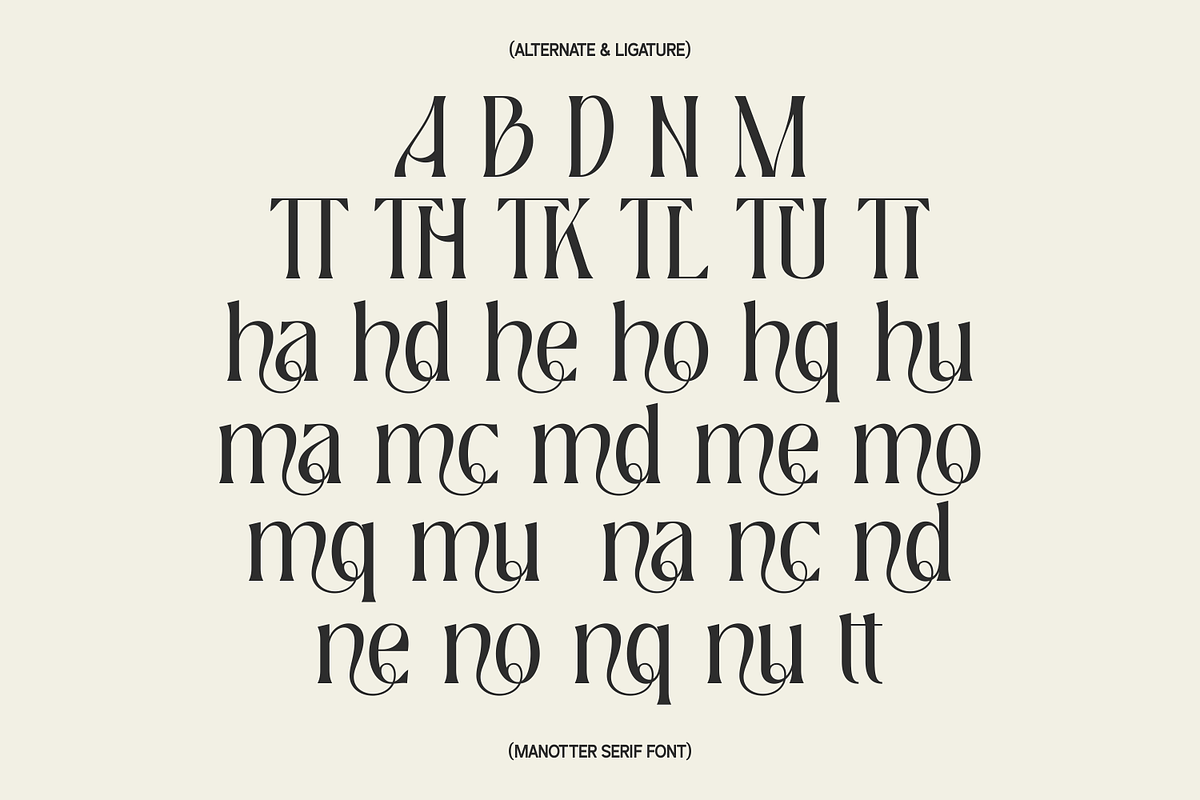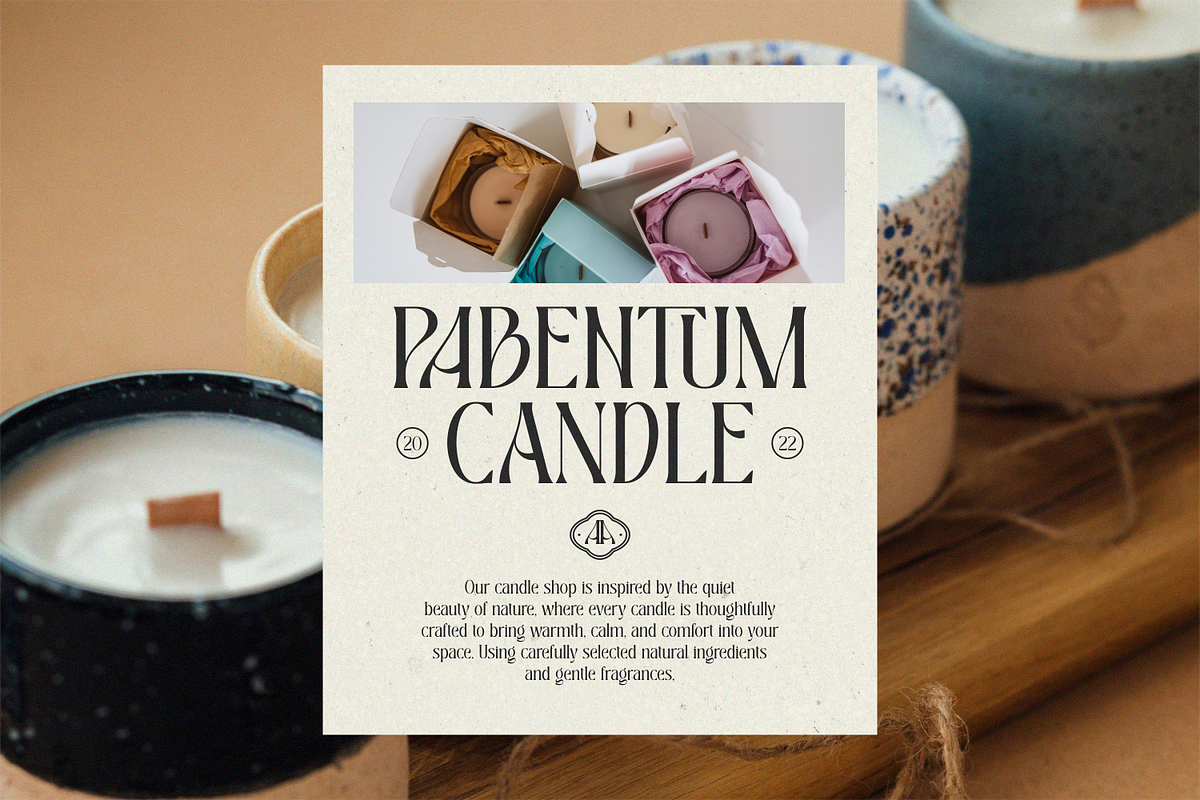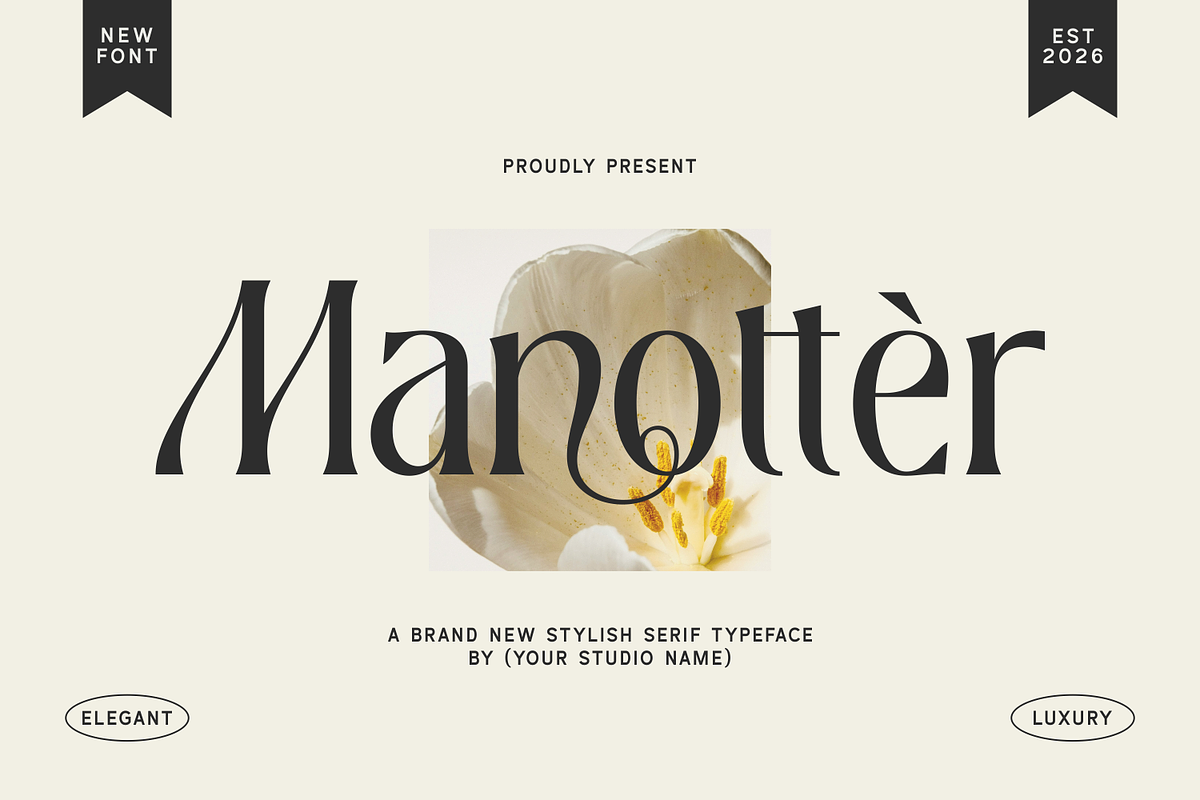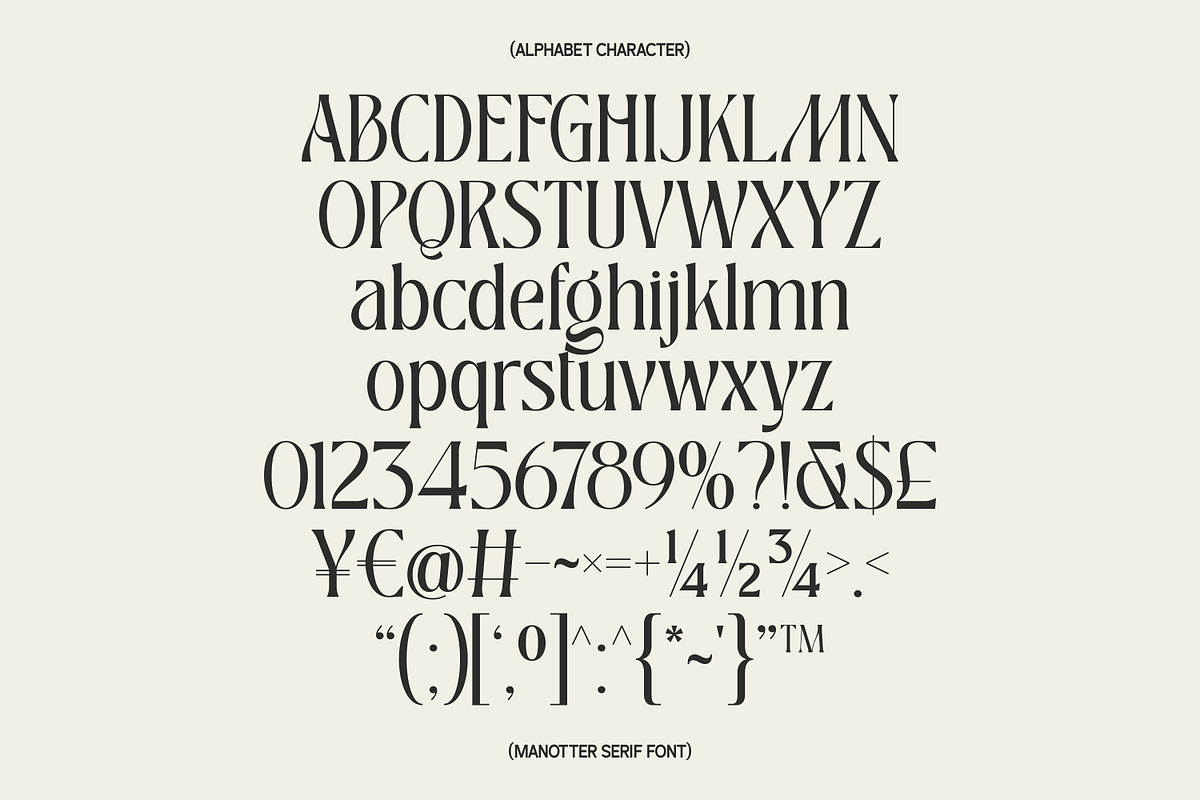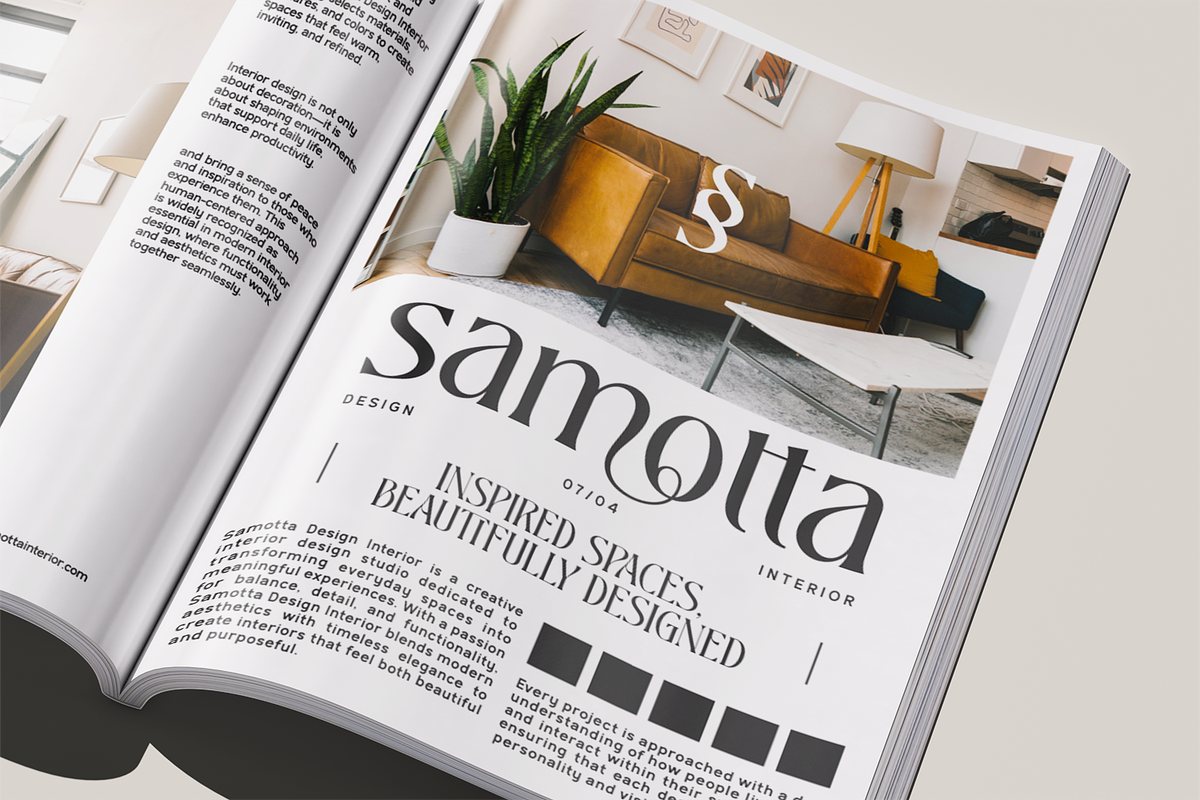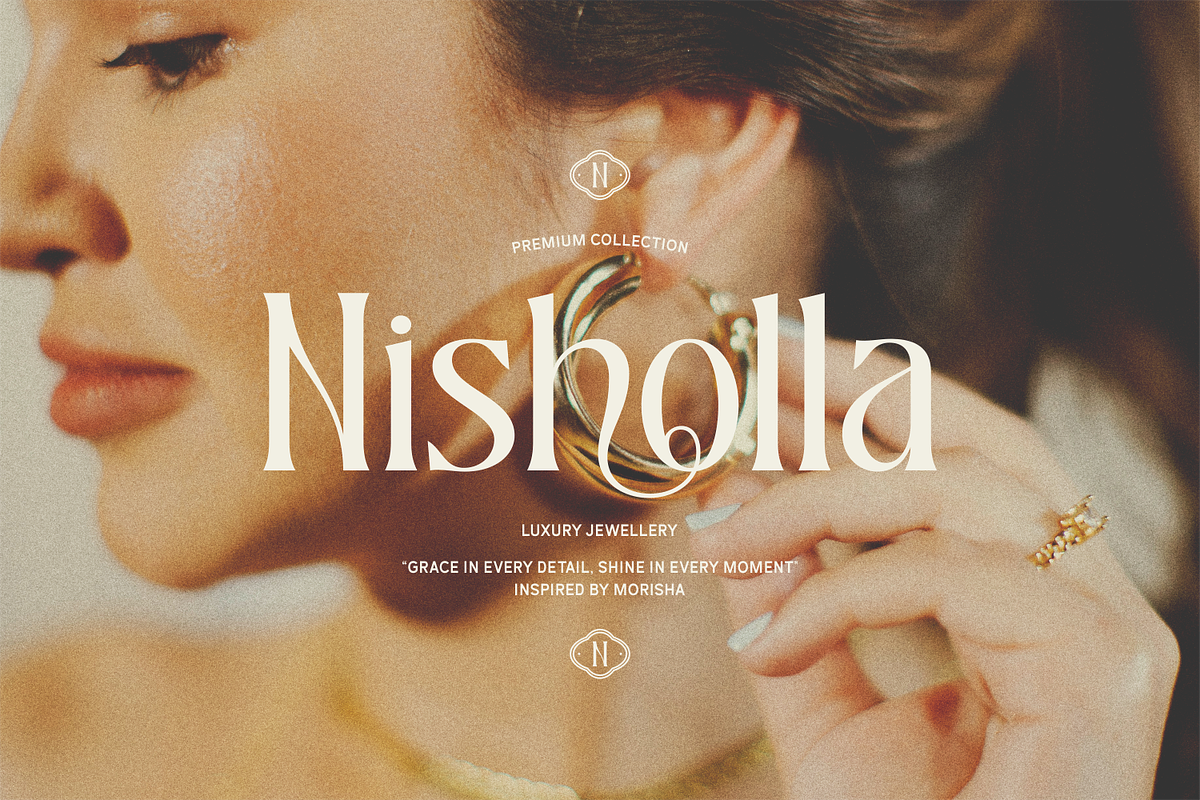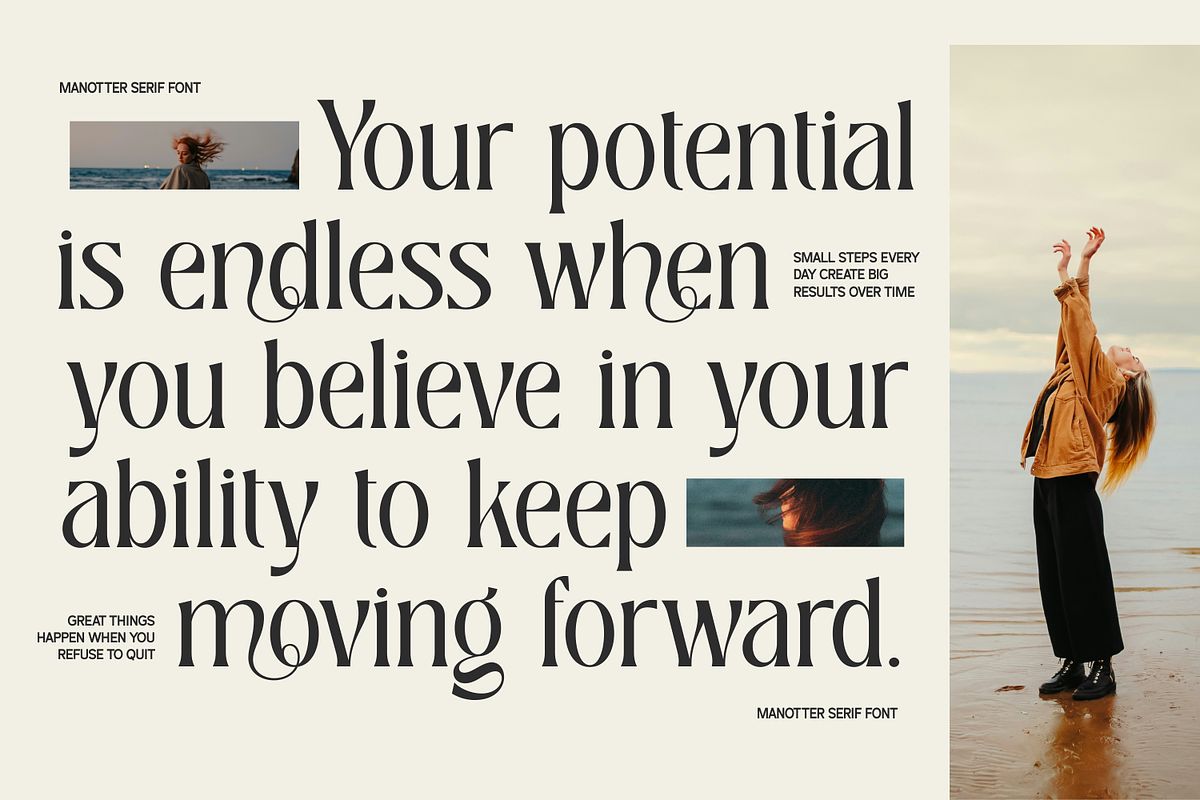
Manottèr – High Contrast Serif
Bring a handcrafted elegance to your luxury branding projects with Manottèr — a serif where every ligature feels deliberately drawn.
Modern high‑contrast serif that brings effortless elegance to luxury branding, premium product packaging, and bespoke wedding invitations. Its graceful yet structured forms create a timeless‑yet‑contemporary feel.
Unlock your creative potential with Manottèr’s intelligent OpenType features: handcrafted ligatures, stylistic alternates, and multilingual support for naturally flowing letter pairs, customizable capitals/terminals, and global language coverage. Each glyph is designed to harmonize, delivering custom‑look results that feel hand‑crafted yet fully digital.
• 263 glyphs, extensive ligature & stylistic alternate set
PAIRING TIP: Manottèr shines alongside clean geometrics like Clofie – try it for luxury branding where contrast between ornate serif and neutral sans creates instant sophistication.